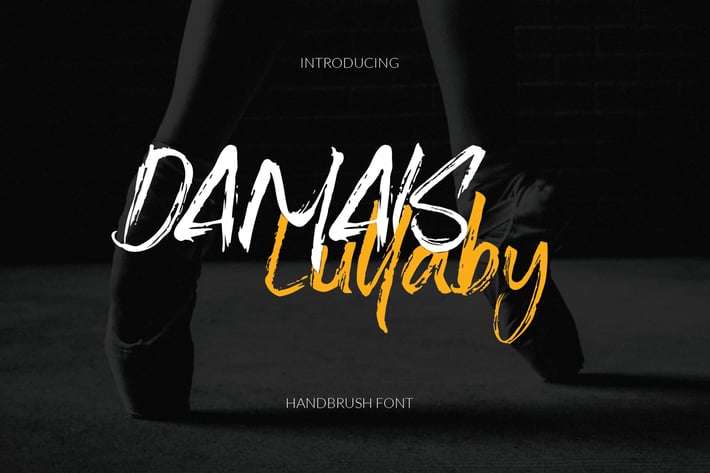
Damais Handbrush Font
Damais Handbrush
Damais Handbrush is a natural font made by handwritten.
This font is perfect for making your set of invitations, Brand, blog posts, greeting cards, labels, photography, quotes, posters, wall art, etc.